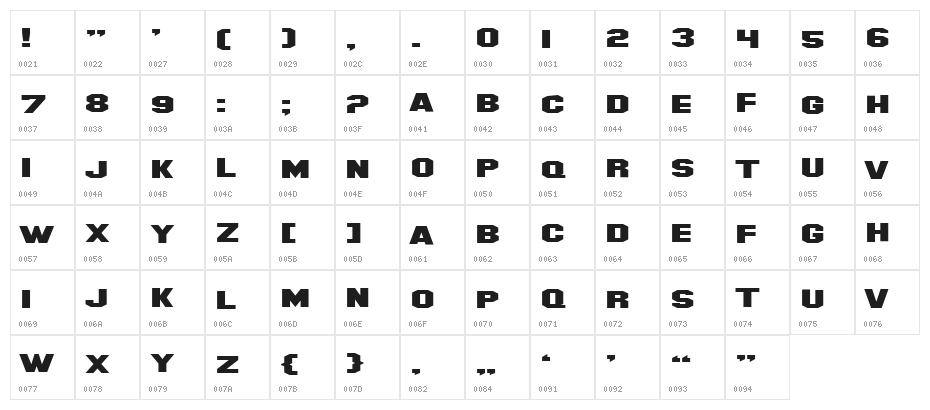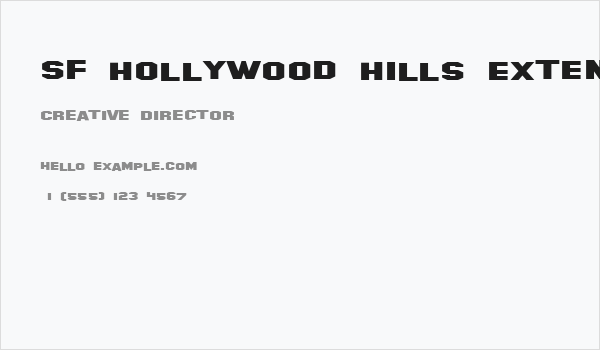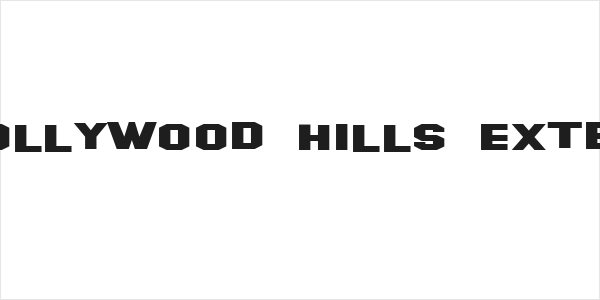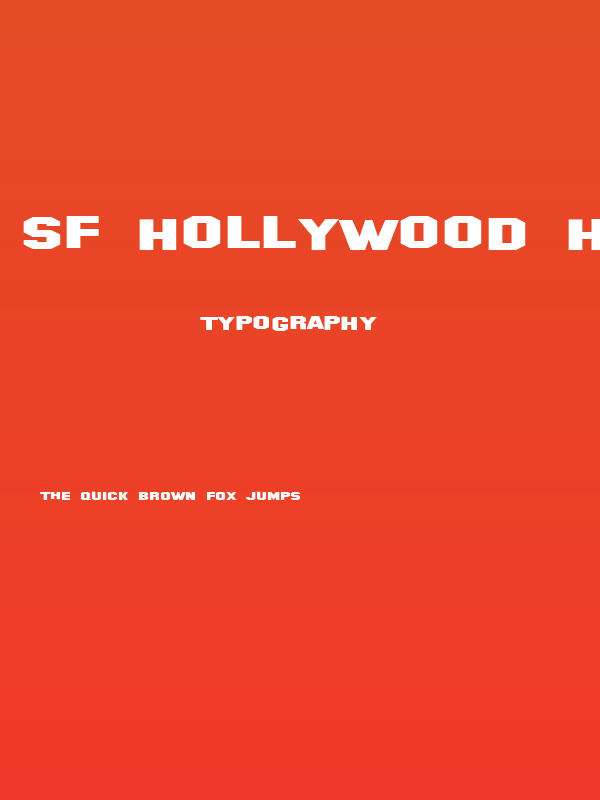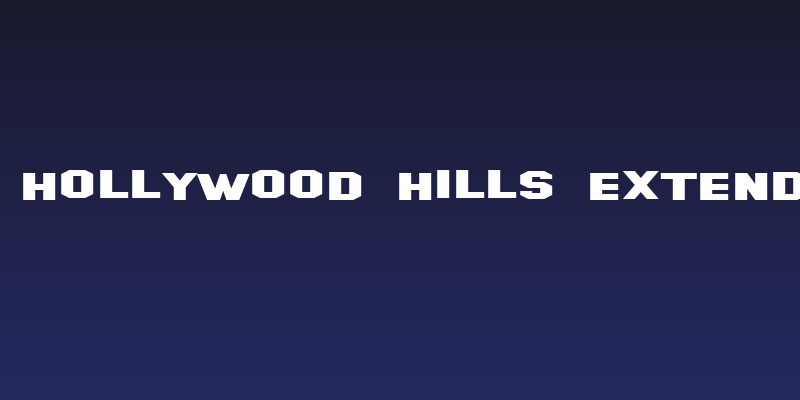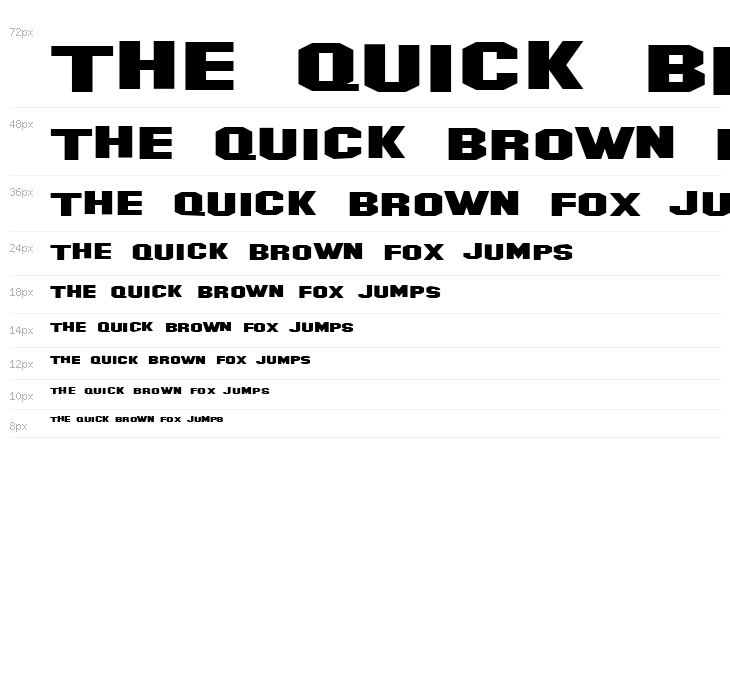
SF Hollywood Hills Extended Font
SF Hollywood Hills Extended Description
This font features a bold and impactful design with strong geometric shapes and a distinct presence. The characters are crafted with sharp angles and a solid structure, giving them a commanding appearance. The uppercase and lowercase letters maintain a consistent style, with the uppercase being particularly prominent. Numbers and special characters follow the same bold aesthetic, ensuring uniformity across all text elements. The font's design is reminiscent of classic Hollywood signage, evoking a sense of nostalgia while maintaining a modern edge. Its extended width adds to its striking visual appeal, making it suitable for attention-grabbing headlines and titles.
| Proposed Projects | Ideal for movie posters, retro-themed designs, branding projects, and any application requiring a bold, eye-catching typeface. |